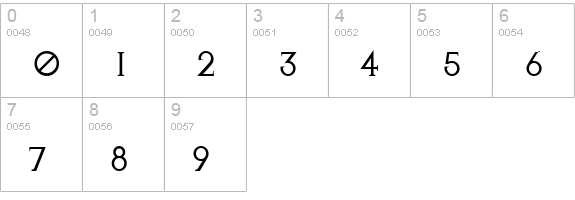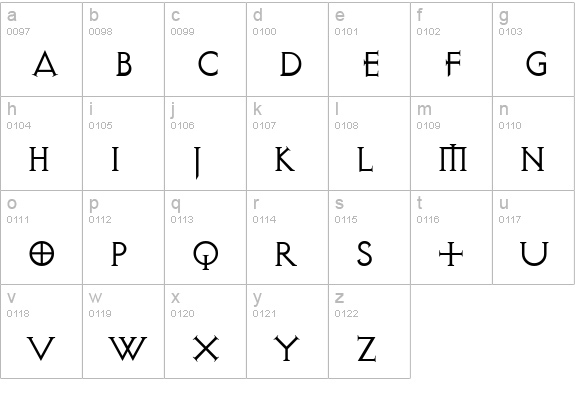
Diablo Light Font Details
Diablo Light is a refined, elegant variant in the Diablo typeface family \xE2\x80\x94 well suited to elegant body text, refined sub-headings, and luxury branding.
Diablo Light font is a sophisticated and elegant typeface that exudes a sense of modernity and style. With its sleek lines and subtle curves, this font is perfect for a variety of design projects, from branding to editorial design. The light weight of the font adds a touch of delicacy and refinement to any text, making it ideal for conveying a sense of sophistication and class. What's even better is that Diablo Light font is completely free to download! You can easily access this beautiful typeface at FontsMarket.com, where you can quickly and conveniently add it to your font library. Don't miss out on the opportunity to enhance your designs with this stunning and versatile font, available for free download now.